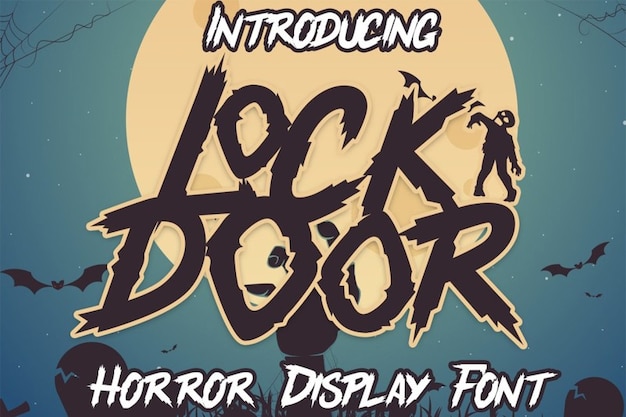
Lockdoor Font
"Lockdoor" font sends shivers down the spine with its eerie, horror-inspired design. Conjuring images of creaking doors and shadowy corridors, each letter drips with suspense and mystery. Perfect for adding a spine-chilling touch to Halloween-themed projects or any design seeking to evoke a sense of dread and unease.